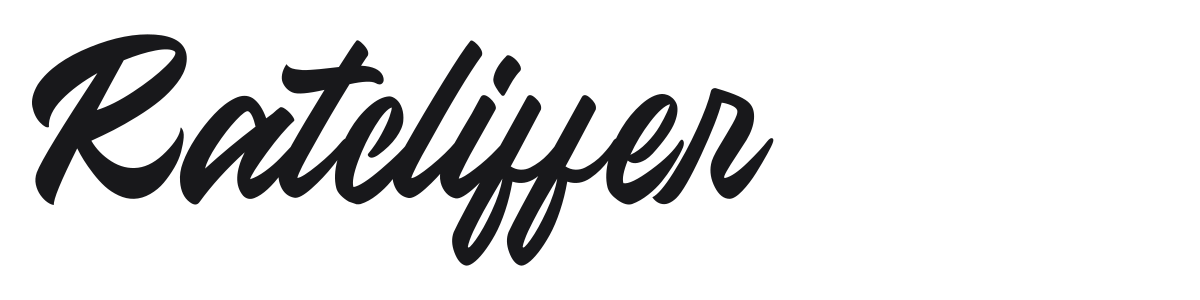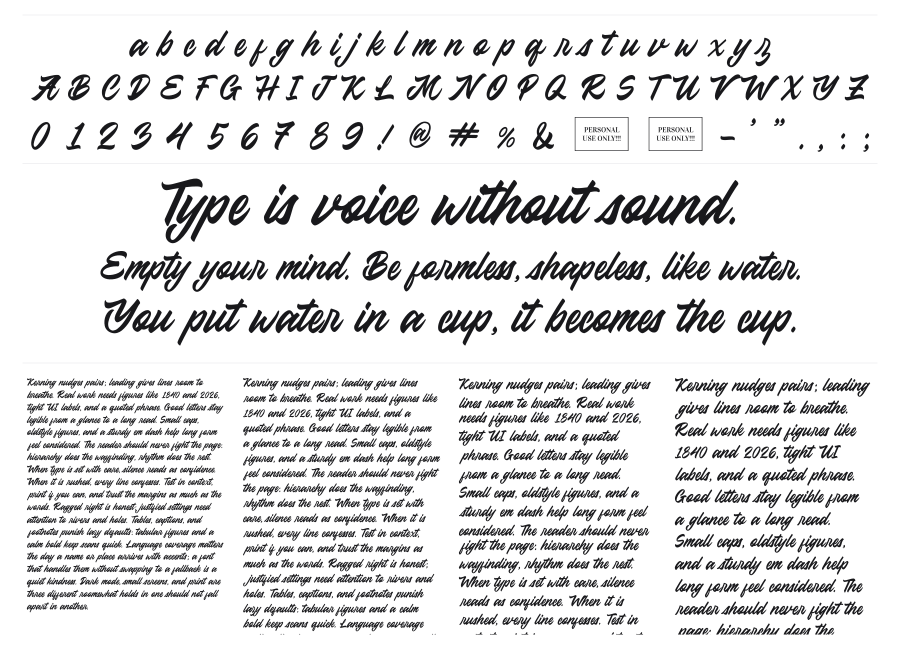
Ratcliffer
Ratcliffer is a bold, flowing brush script with the loose energy of hand-lettered sign painting. Its thick-to-thin stroke contrast and tightly connected letters create a sense of speed and confidence on the page. Strong at large sizes for logos, packaging, and poster headlines.